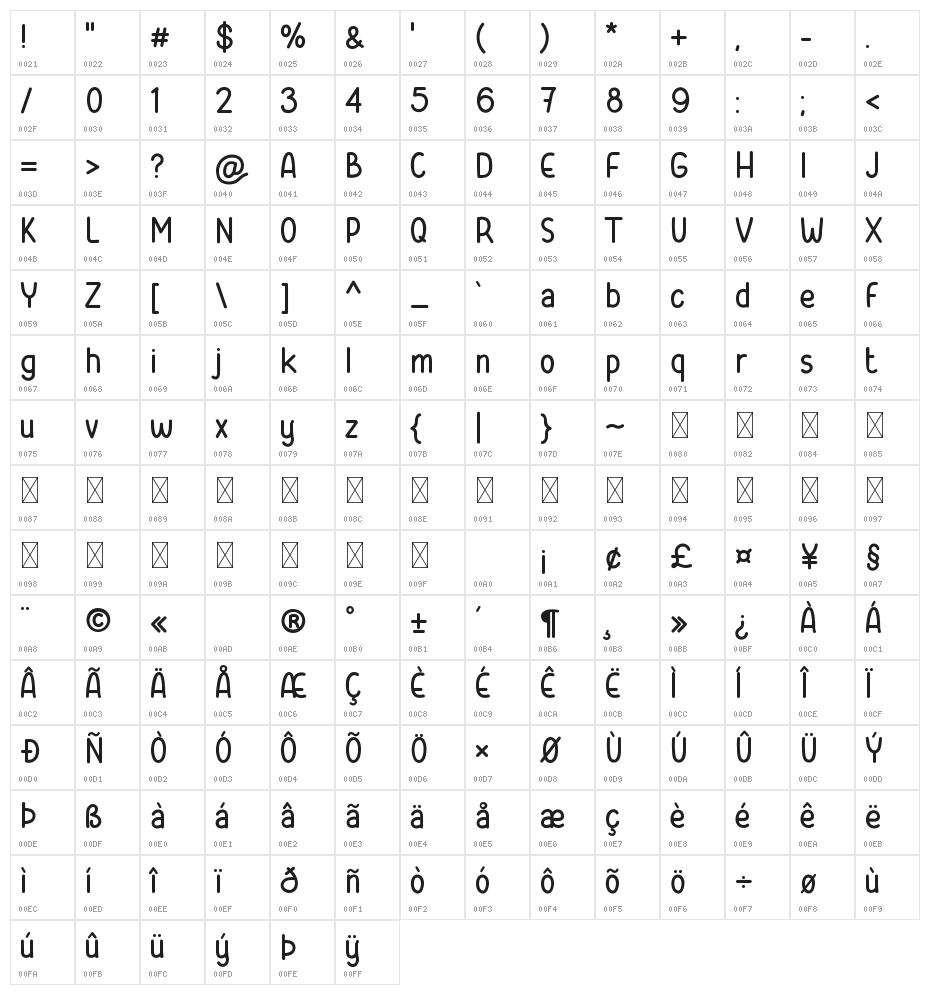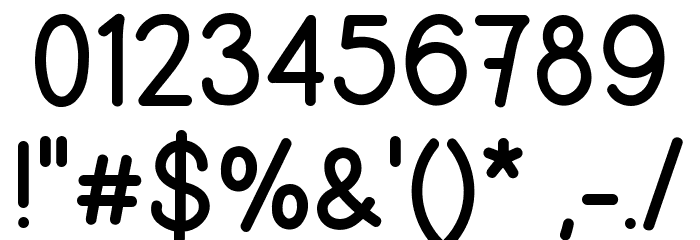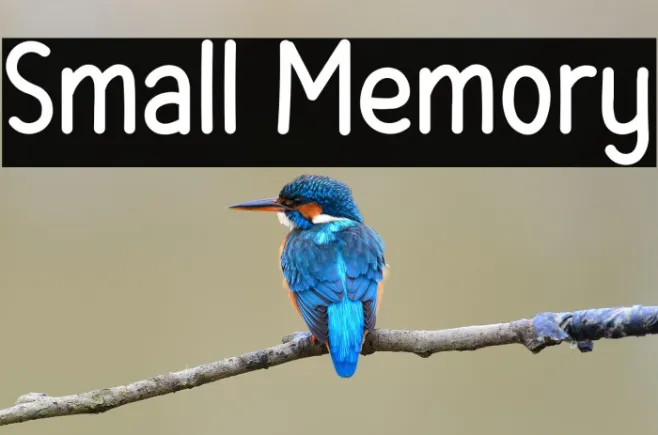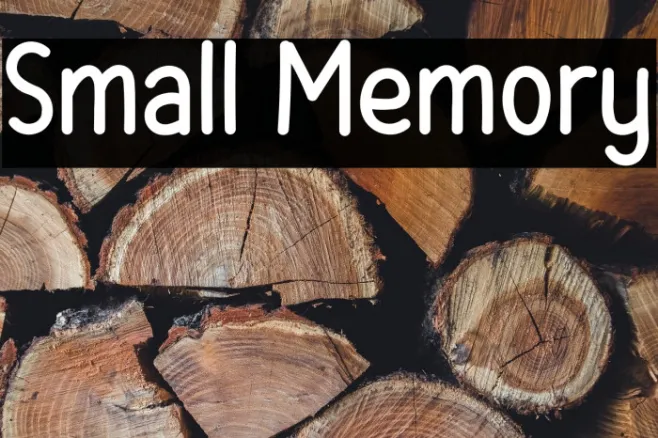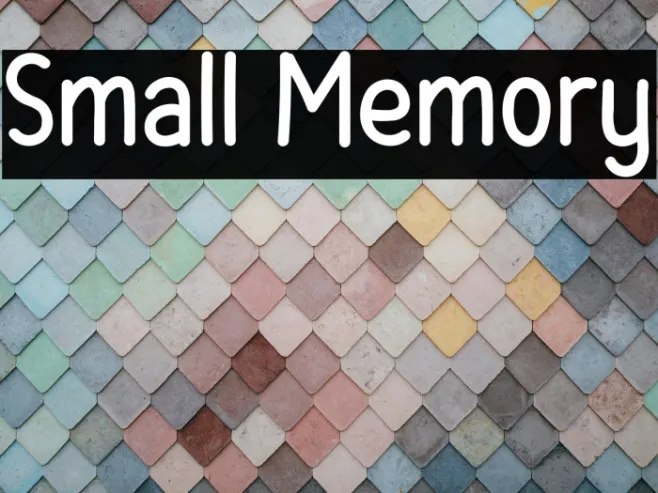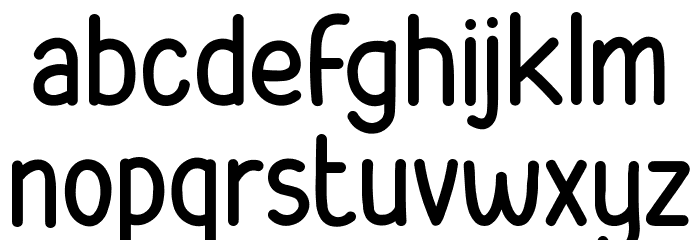
Small Memory Font
Small Memory Description
This font features a playful and rounded design, characterized by its smooth curves and friendly appearance. The letters are evenly spaced, providing a clean and approachable look. The uppercase and lowercase letters maintain a consistent style, with rounded edges that give a sense of warmth and accessibility. The numerals and special characters follow the same design principles, ensuring uniformity across all characters. This font is highly legible, making it suitable for various applications where readability is key. Its modern yet casual style makes it versatile for both digital and print media.
| Proposed Projects | Ideal for children's books, educational materials, casual branding, and playful advertising campaigns. |